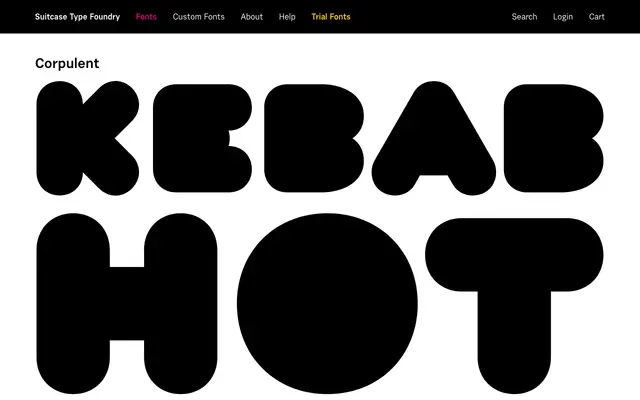
A heavy display typeface from Suitcase Type Foundry, designed for large-scale headline use.
Corpulent is a display typeface from Prague-based Suitcase Type Foundry, built around pronounced weight as its primary expressive quality. The name signals the design's intent: exaggerated mass suited to poster and headline contexts. Too little detail was available from the page to assess its full character or family range.
The name 'Corpulent' suggests a heavy, bold display typeface intended for large-scale use, likely with exaggerated weight as its defining characteristic.